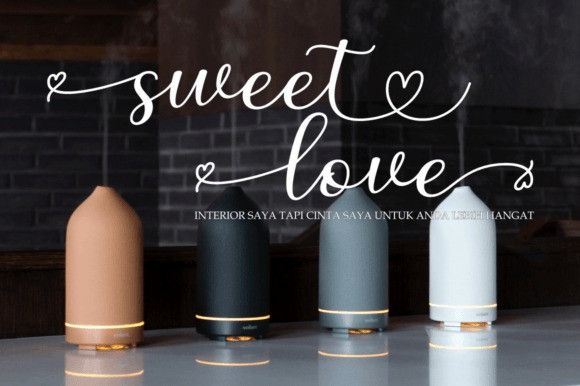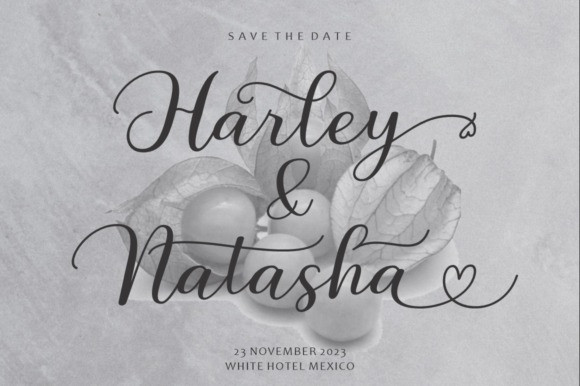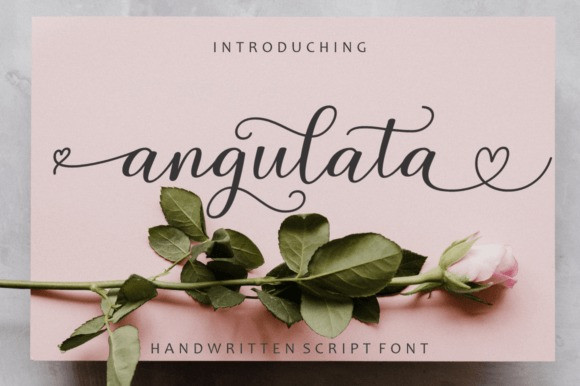
Angulata Font
Angulata Font is a modern calligraphy font with the current handwriting style. This font is perfect for branding, wedding invites, magazines, mugs, business cards, quotes, posters, and more.
Angulata is equipped with lots of variations and options for each letter so you can customize your designs as you wish.